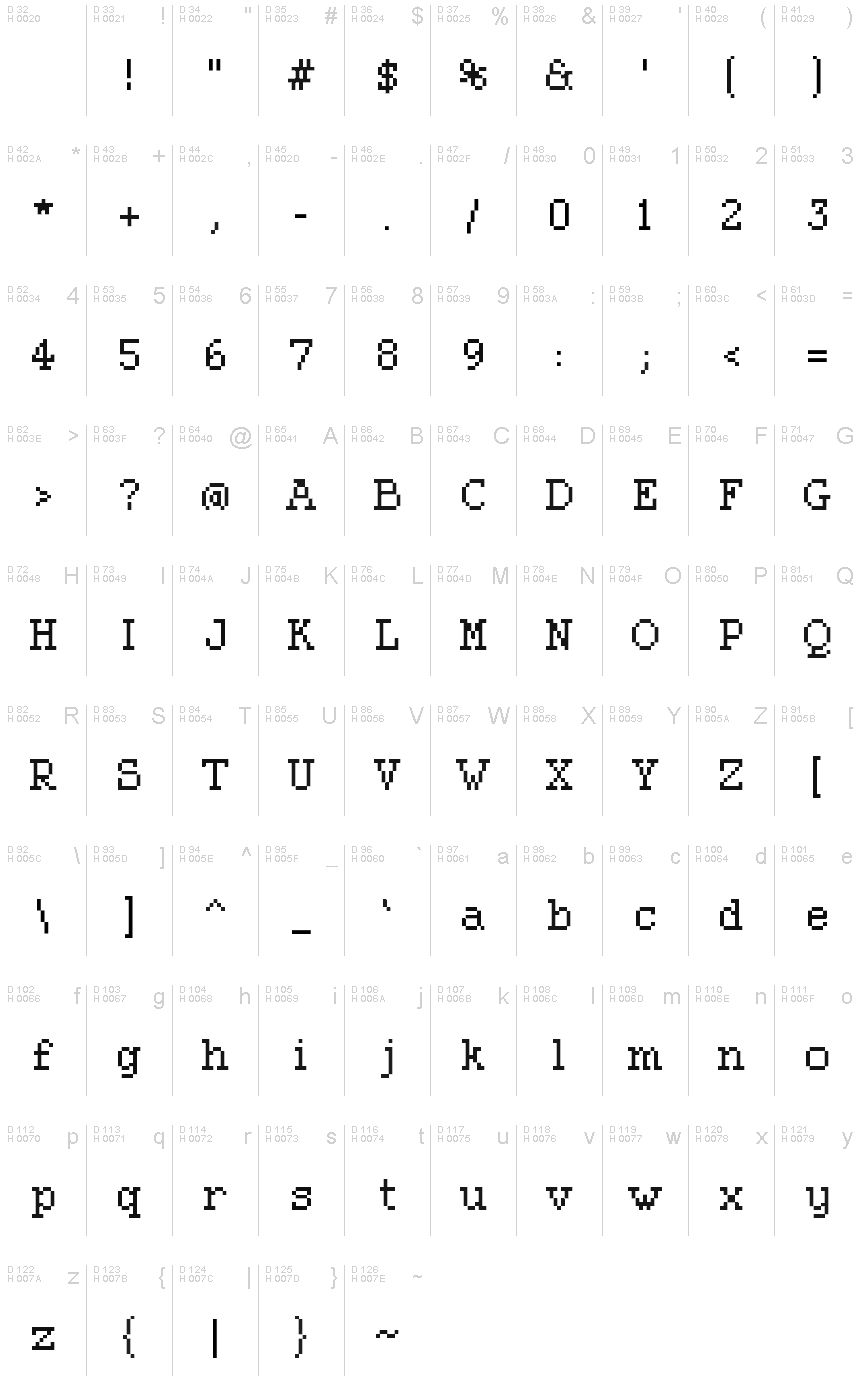
Pixolde
Pixolde is a captivating bitmap font that exudes a distinctly pixelated charm. Designed by Jeti, this unique typographic creation embodies the essence of retro-inspired digital aesthetics. The sharp, angular letterforms and the crisp, blocky appearance immediately command attention, evoking a sense of nostalgia and a distinct visual flair.
Pixolde's pixelated style lends itself exceptionally well to a range of applications, from retro-themed designs and game user interfaces to eye-catching headlines and digital art projects. Its bold, eye-catching presence makes it an ideal choice for creating striking visual impact, whether in bold titles, eye-catching posters, or immersive digital experiences.
Pixolde by jeti: A simple serif font with the tiniest hint of typewriter aesthetics.